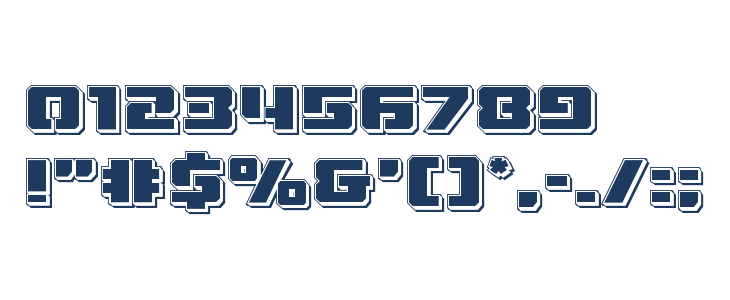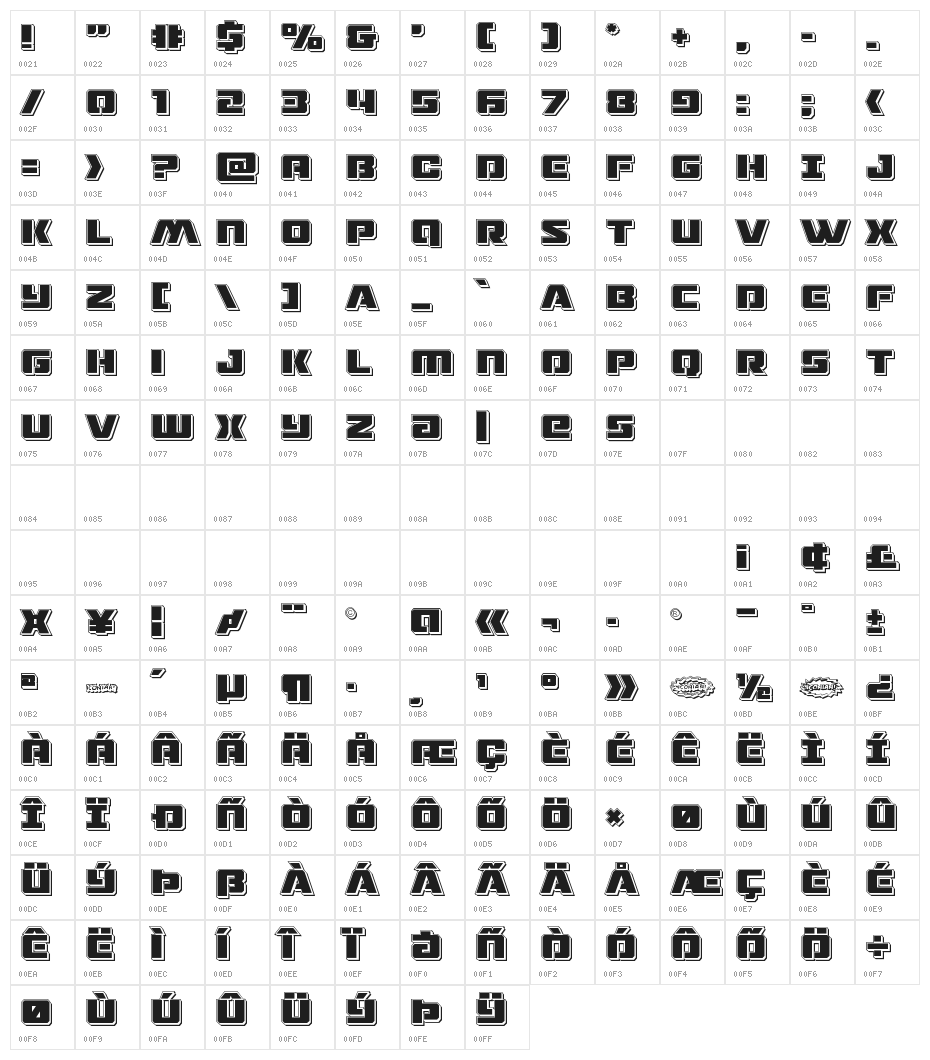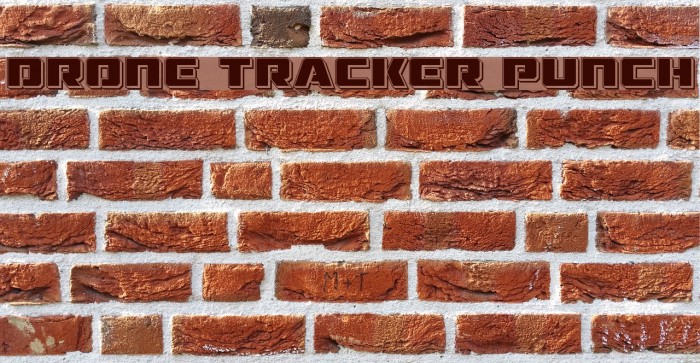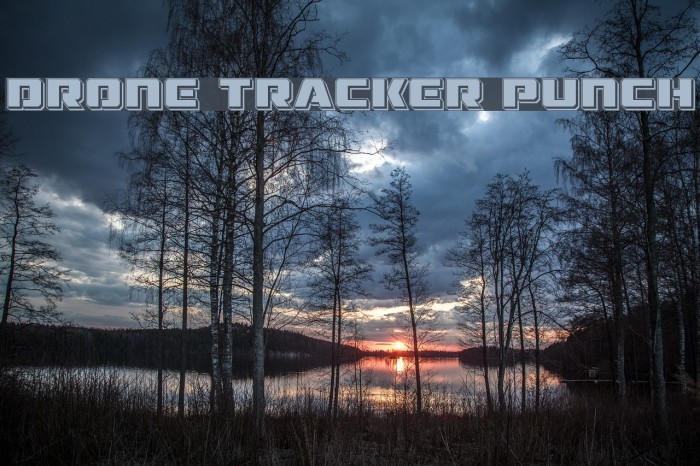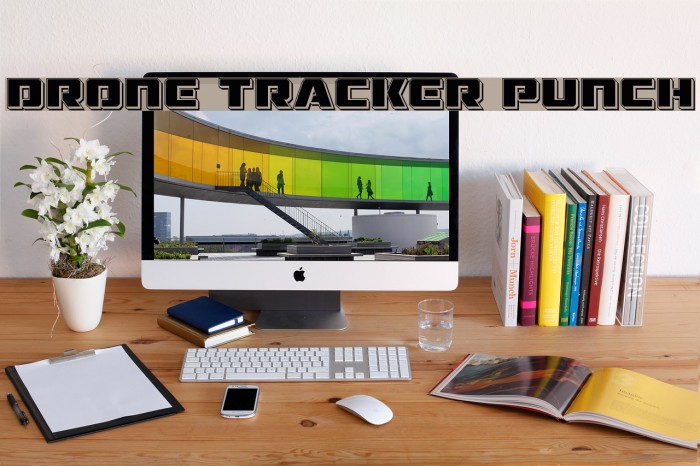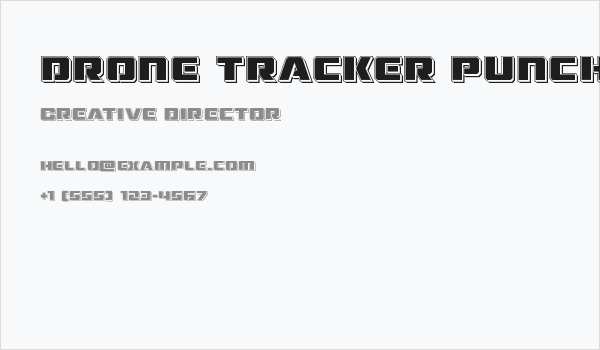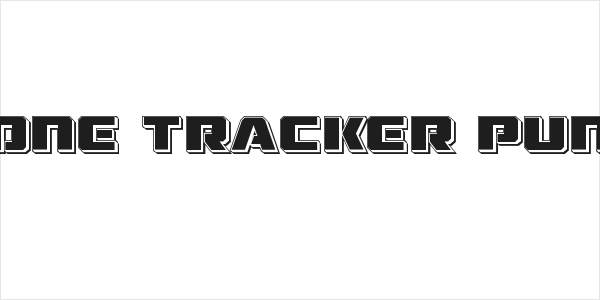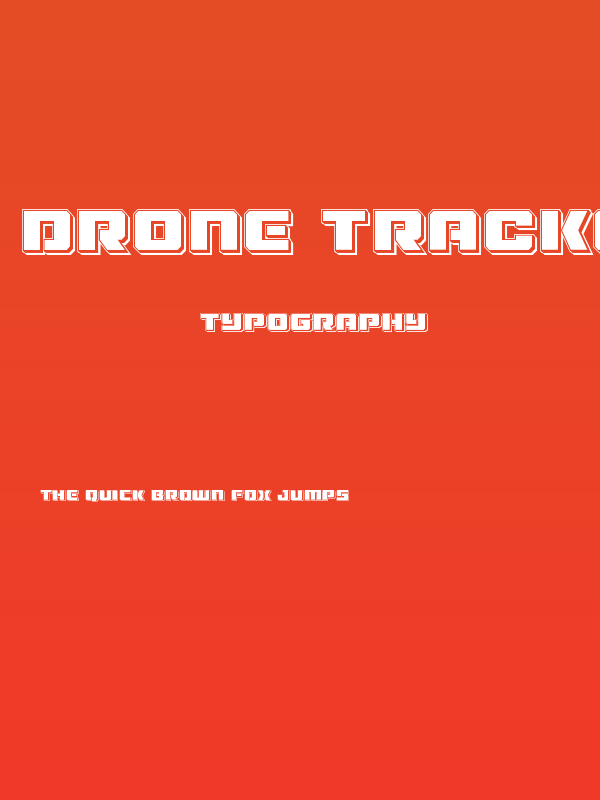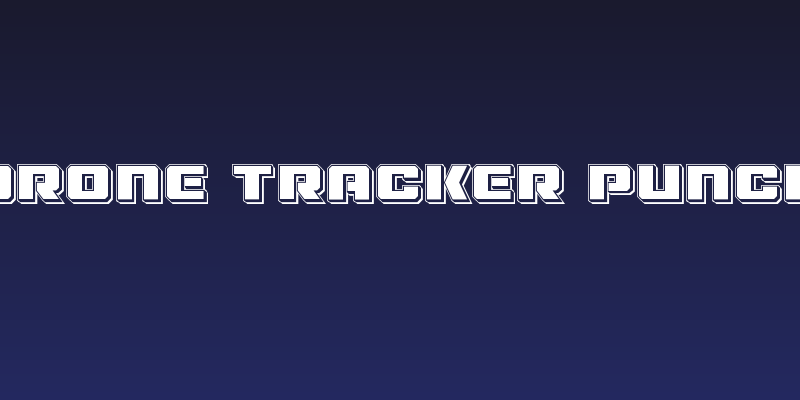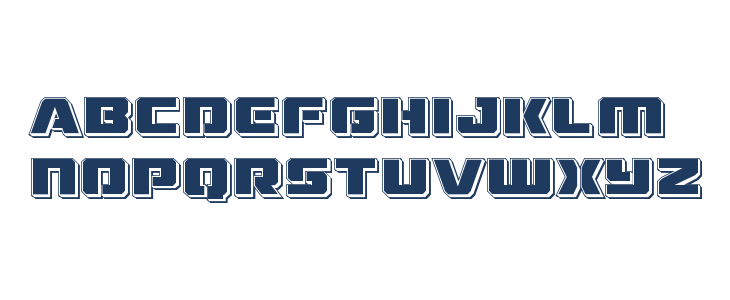
Drone Tracker Punch Font
Drone Tracker Punch Description
This font features a bold, futuristic design with a strong geometric structure. The characters are outlined, creating a three-dimensional effect that adds depth and visual interest. The uppercase and lowercase letters maintain a consistent style, with sharp angles and a blocky appearance. The numbers and special characters follow the same design principles, ensuring uniformity across all glyphs. This font's unique style makes it stand out, with a modern and edgy aesthetic that is both eye-catching and versatile.
| Proposed Projects | Ideal for technology branding, video game titles, sci-fi movie posters, and modern advertising campaigns. |